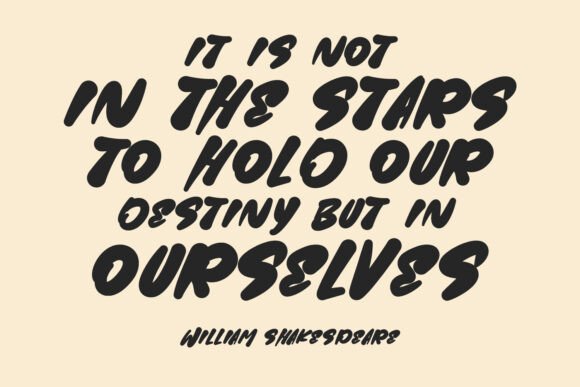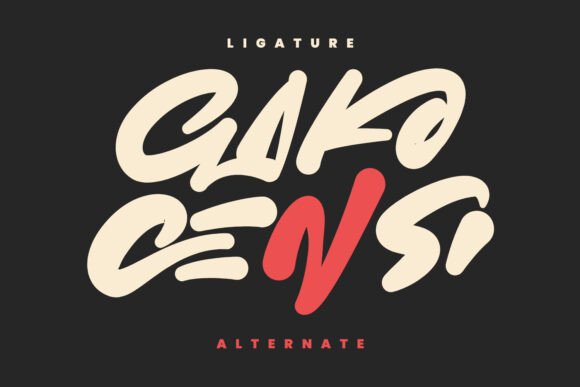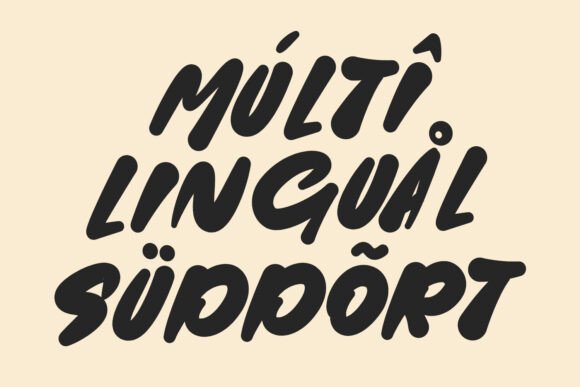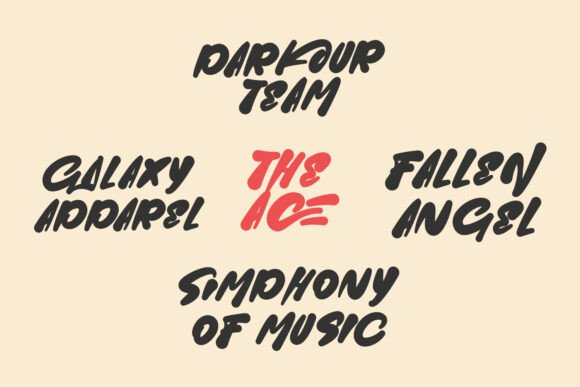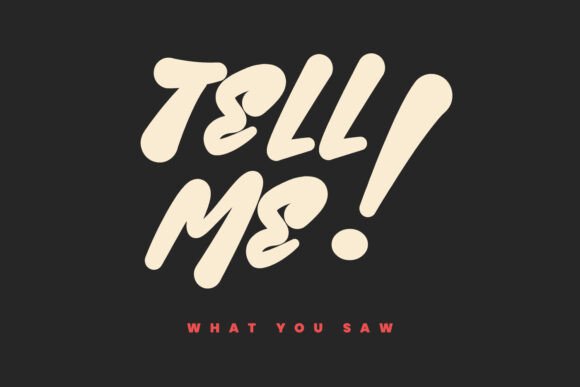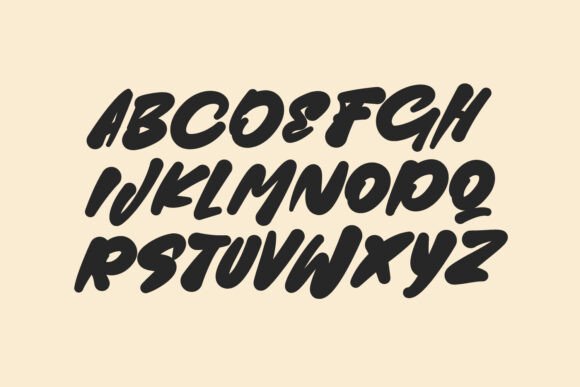
Gako Censi Font: Unleash Your Creativity with this Bold, Handmade Brush Font
Are you looking for a font that exudes energy, expressiveness, and an urban edge? Look no further than the Gako Censi Font, a bold, handmade brush font that’s perfect for designers and crafters seeking to add a dynamic touch to their projects. With its thick strokes, dynamic curves, and modern flair, Gak Gensi is ideal for a wide range of applications, from posters and streetwear branding to music covers, merchandise, and typography projects.
The Unique Characteristics of Gako Censi Font
Gak Gensi is an all-caps brush display font that commands attention and brings an edgy vibe to your work. Its bold, handmade strokes are carefully crafted to give your designs a unique, hand-painted look that’s both expressive and eye-catching. The font’s dynamic curves and fluid lines add a sense of movement and energy, making it perfect for projects that require a modern, urban feel.
What Makes Gako Censi Font So Versatile?
One of the key features that sets Gak Gensi apart is its versatility. This font can be used for a wide range of projects, including:
- Posters: Add a bold, eye-catching touch to your posters with Gak Gensi’s thick strokes and dynamic curves.
- Streetwear Branding: Give your streetwear brand a modern, edgy vibe with this font’s urban flair.
- Music Covers: Make your music covers stand out with Gak Gensi’s bold, expressive style.
- Merchandise: Add a unique touch to your merchandise with this font’s hand-painted look.
- Typography Projects: Use Gak Gensi to add a bold, modern touch to your typography projects.
Why Choose Gako Censi Font?
So why choose Gak Gensi over other fonts? Here are just a few reasons:
- Unique Style: Gak Gensi’s handmade brush strokes give it a unique, one-of-a-kind style that’s sure to set your designs apart.
- High-Quality Design: This font is carefully crafted to ensure high-quality design and maximum legibility.
- Versatile: As mentioned earlier, Gak Gensi can be used for a wide range of projects, making it a great addition to any designer’s toolkit.
Tips for Using Gako Censi Font
Here are a few tips for getting the most out of Gak Gensi:
- Use it bold: Gak Gensi is designed to be used bold, so don’t be afraid to make it big and bold.
- Experiment with colors: Try pairing Gak Gensi with different colors to add an extra layer of depth and interest to your designs.
- Mix and match: Combine Gak Gensi with other fonts to create unique, eye-catching designs.